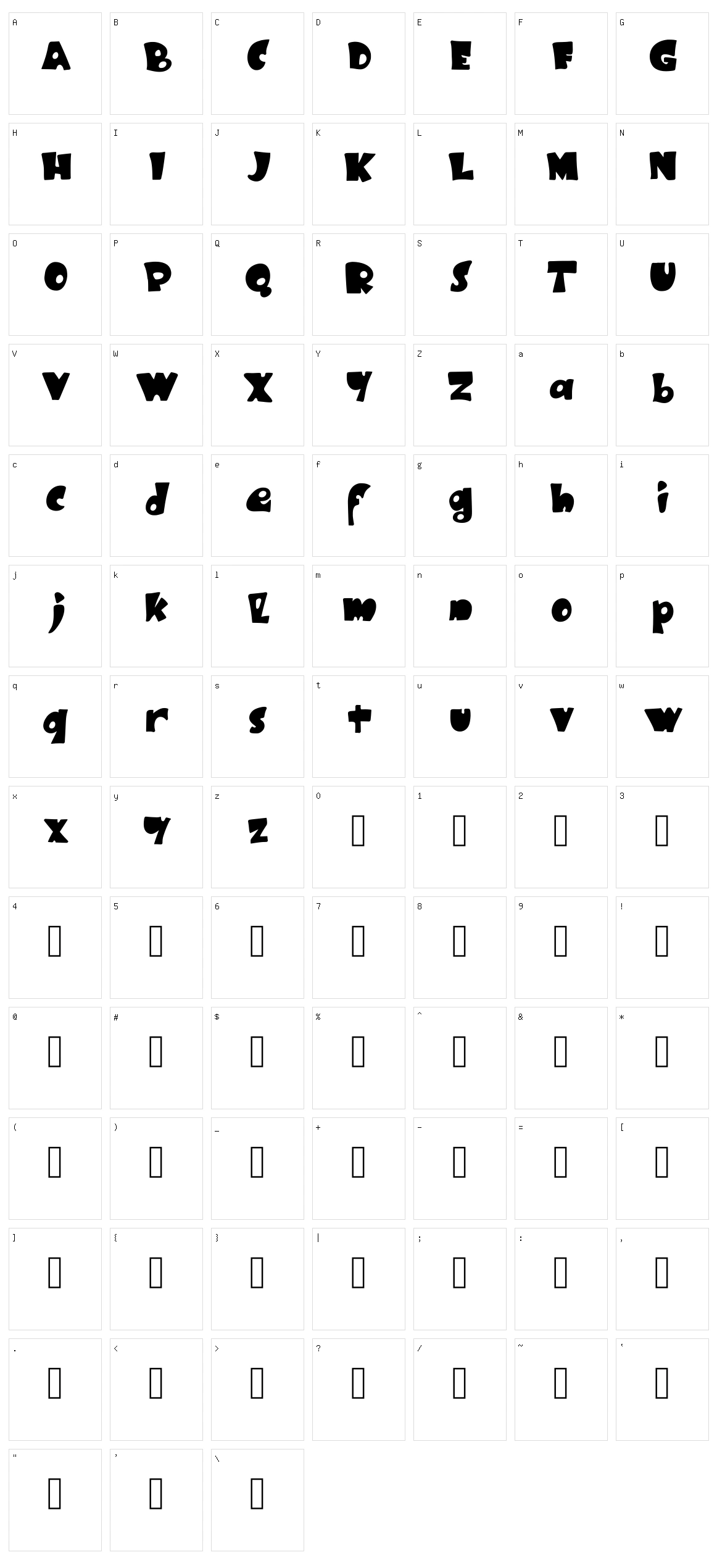
The free font Black Ruby is carefully designed by Martin Steiner, showcasing a thoughtful balance of creativity and usability and falls under the Cartoon font style. When you download the ZIP file, it contains only 1831.49 KB of font files, making it lightweight and quick to download. Please review the license details below to understand permitted usage and distribution rights. If license information is not available, we recommend using this font for personal projects only or contacting the author directly for commercial usage permissions.